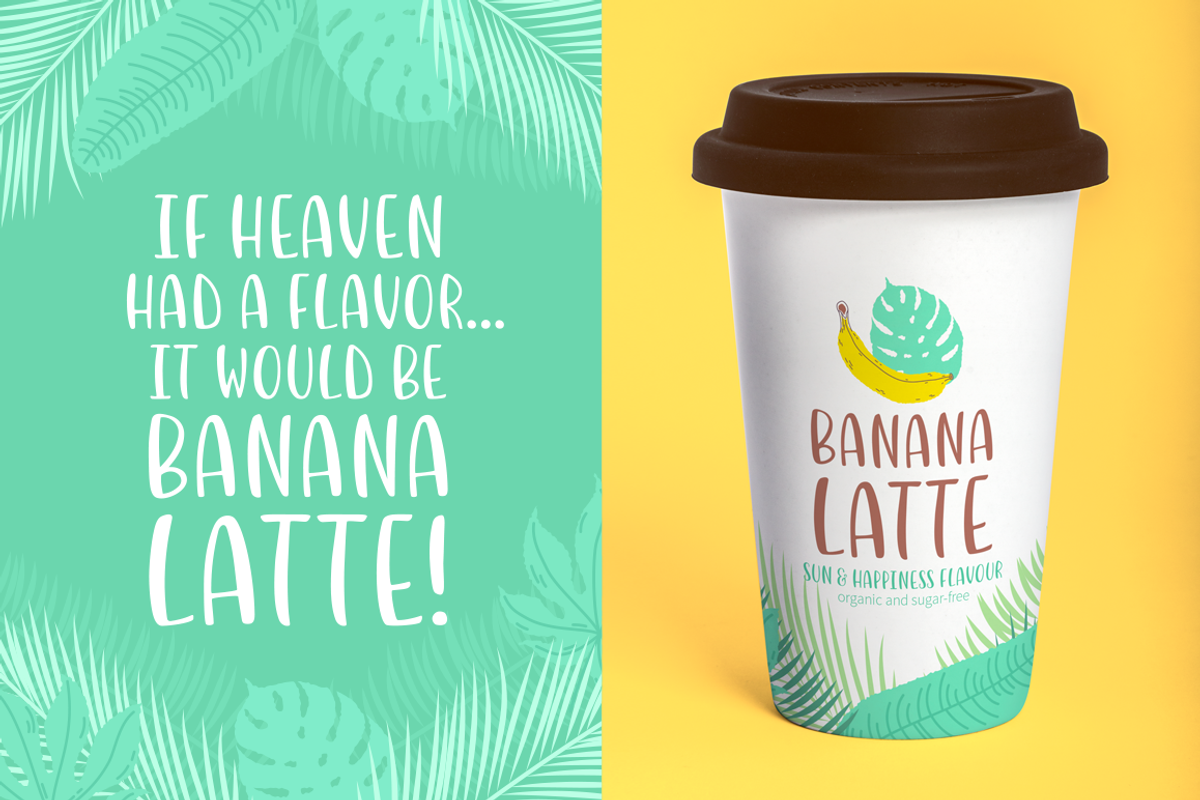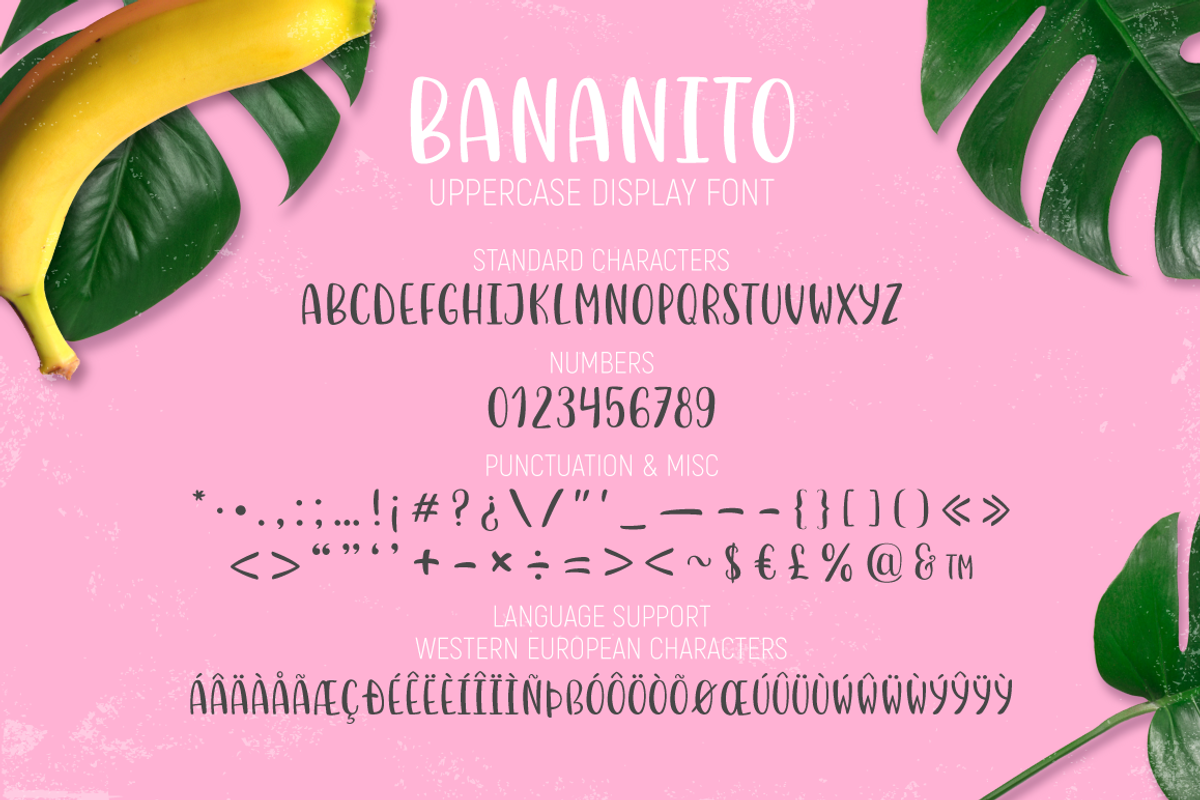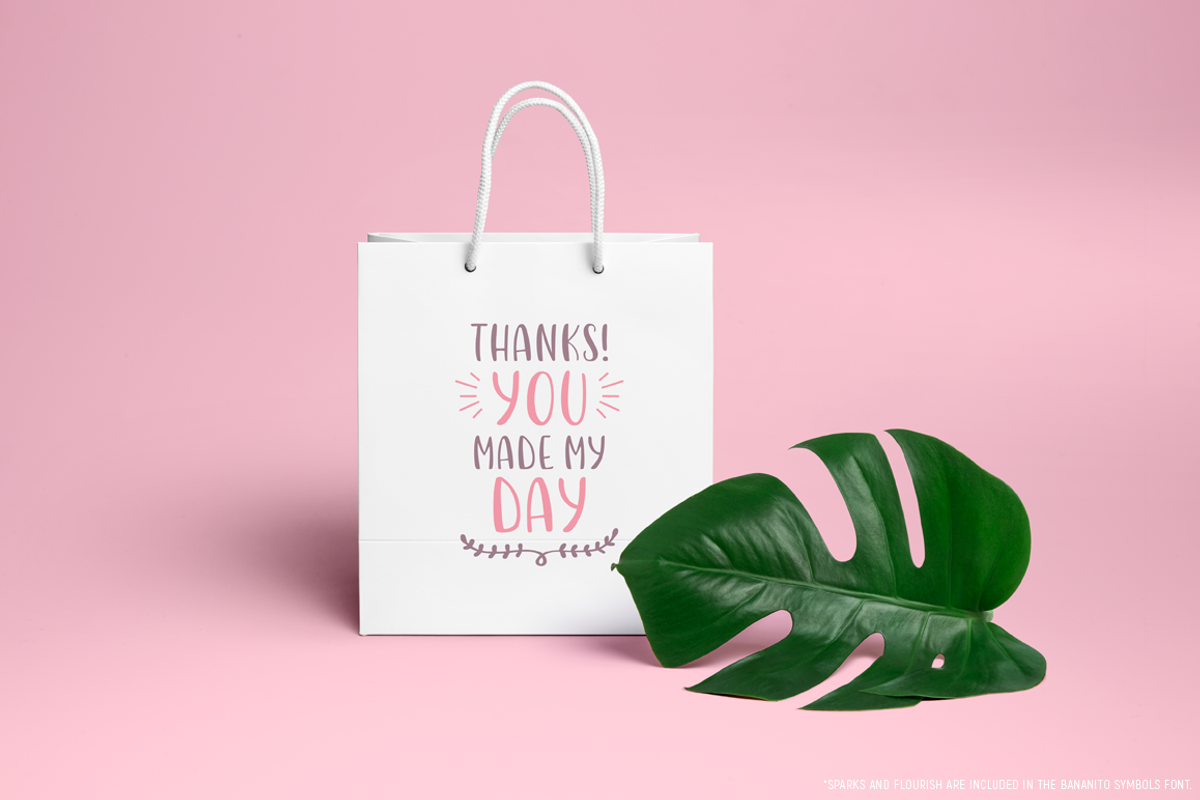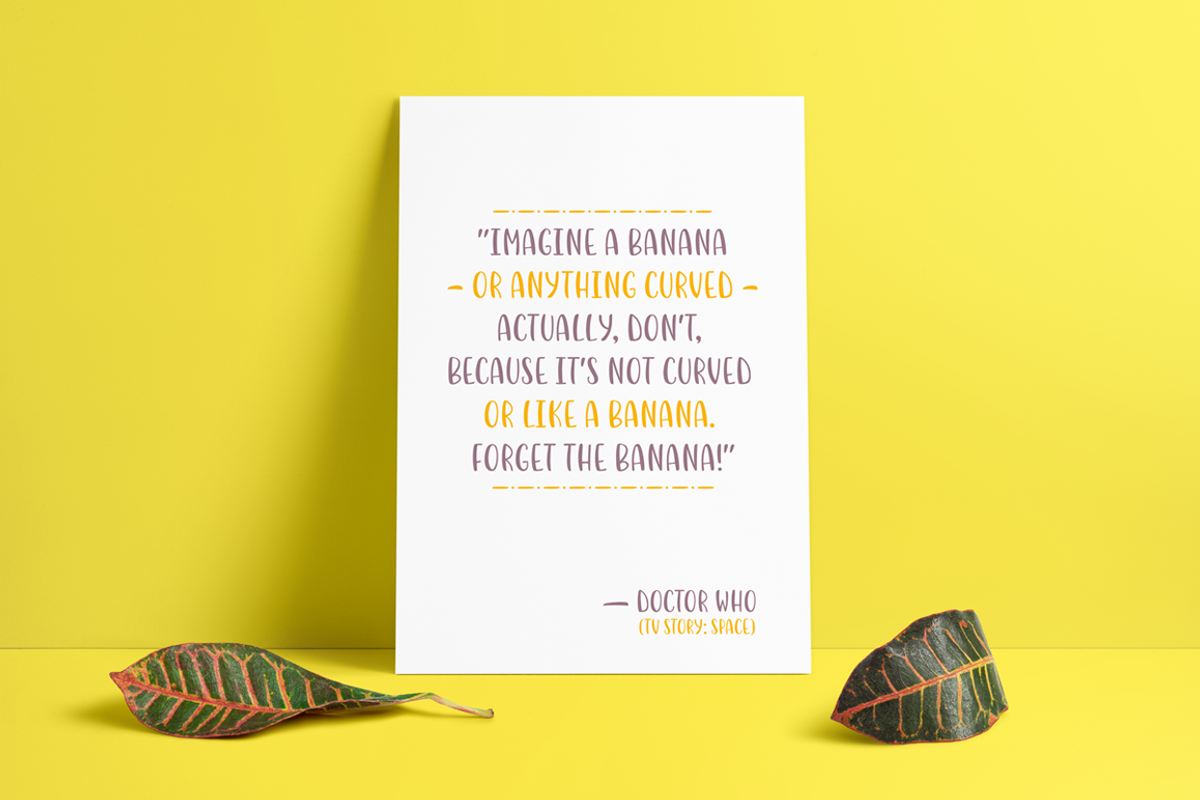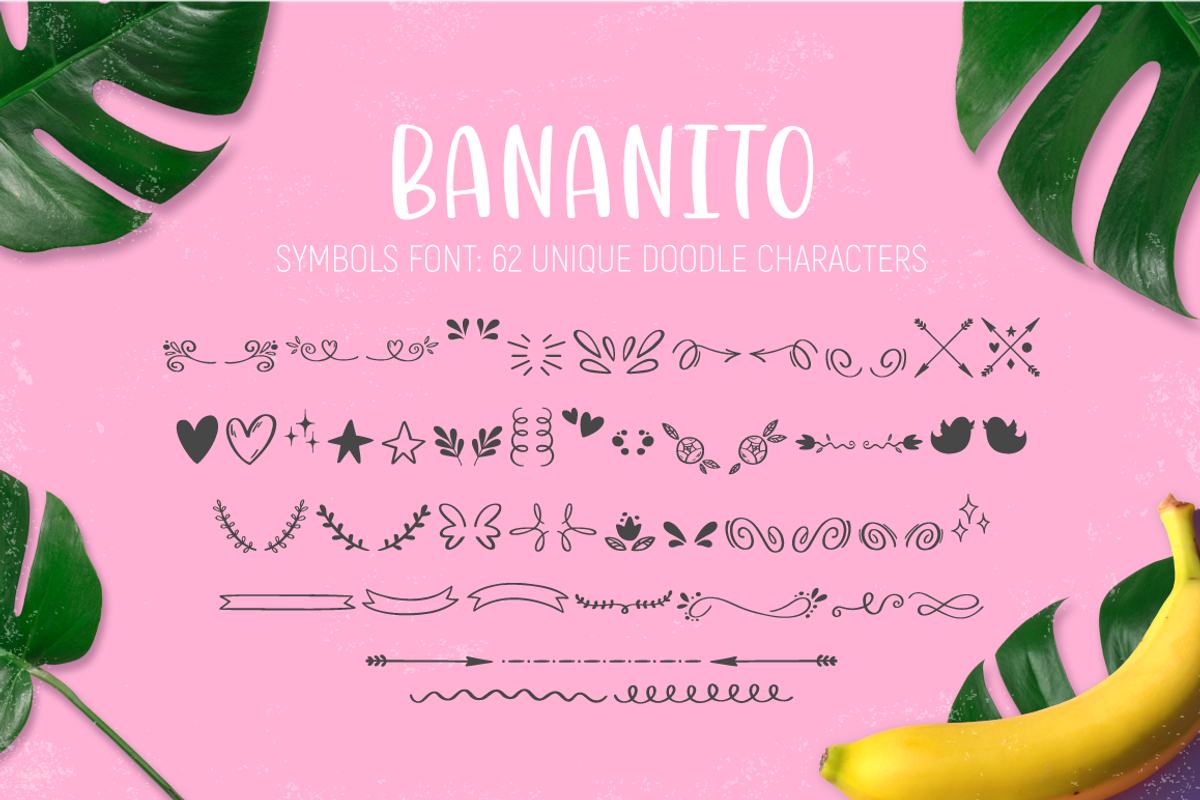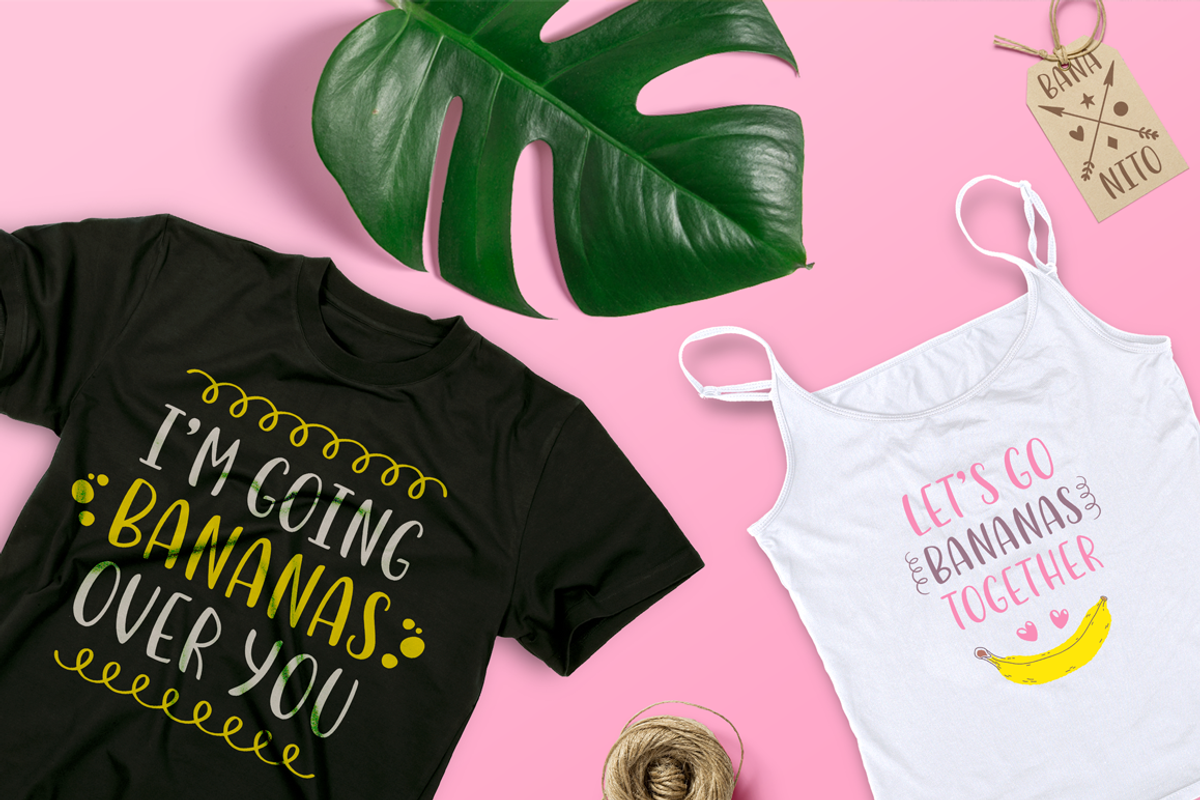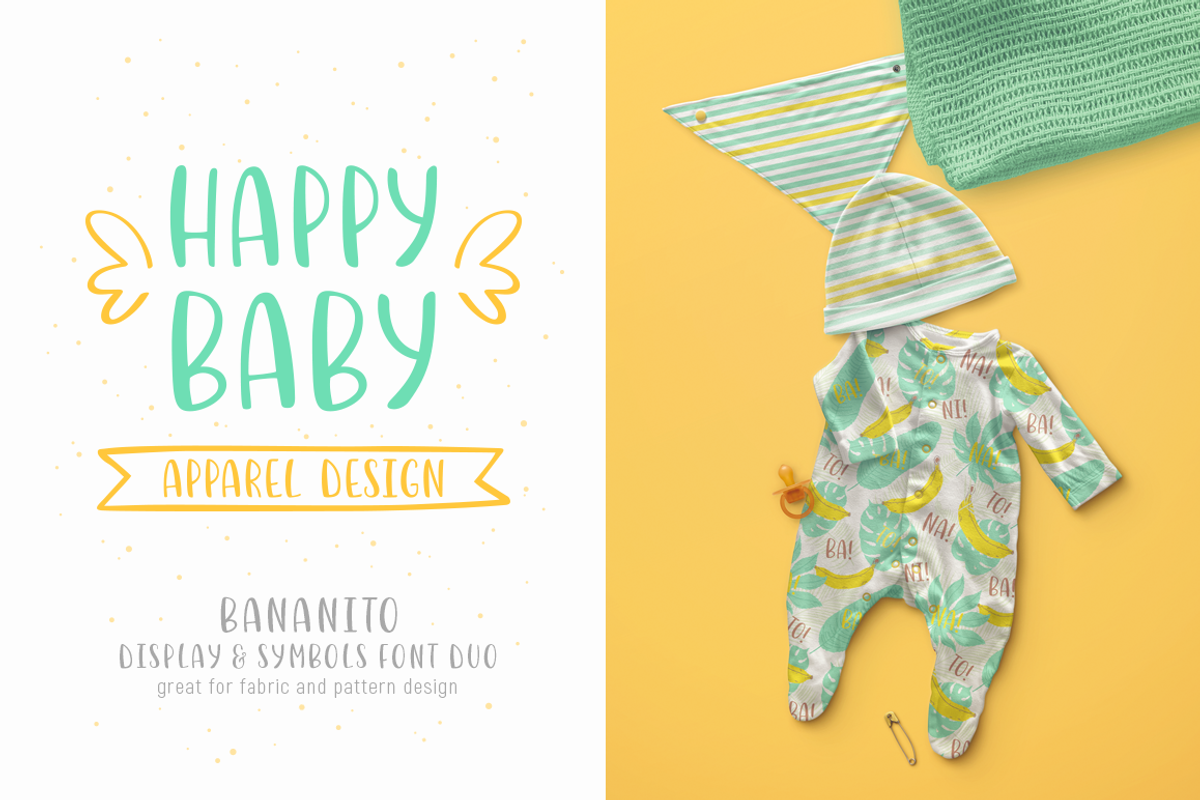
Bananito Font Duo
Bananito Font Duo by Yuzach is a font selected for branding, posters, packaging, typography.
- BANANITO is a combination of a cheery uppercase display font and a unique symbols font with more than 60 doodle characters.
- Bananito Display
- Bananito Symbols
Why Bananito Font Duo is worth a look
Bananito Font Duo by Yuzach fits naturally into Branding, posters, packaging, typography.